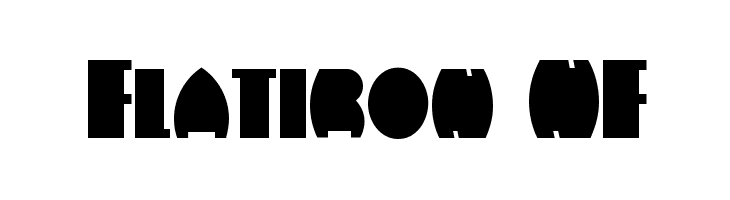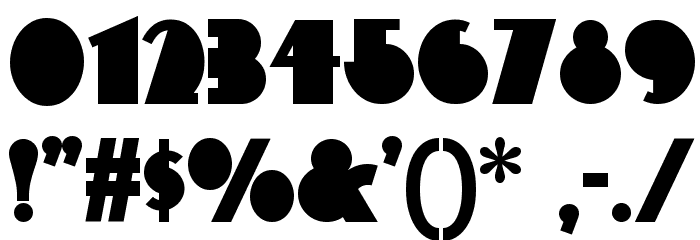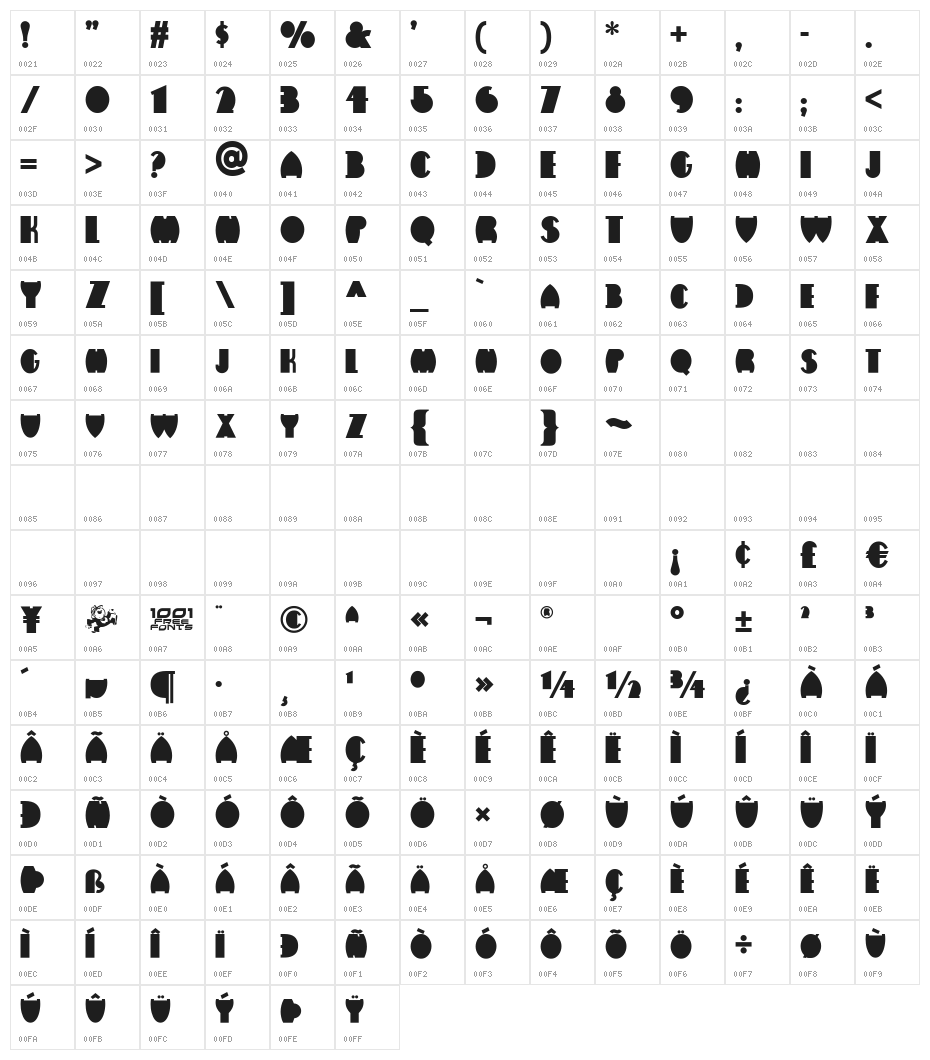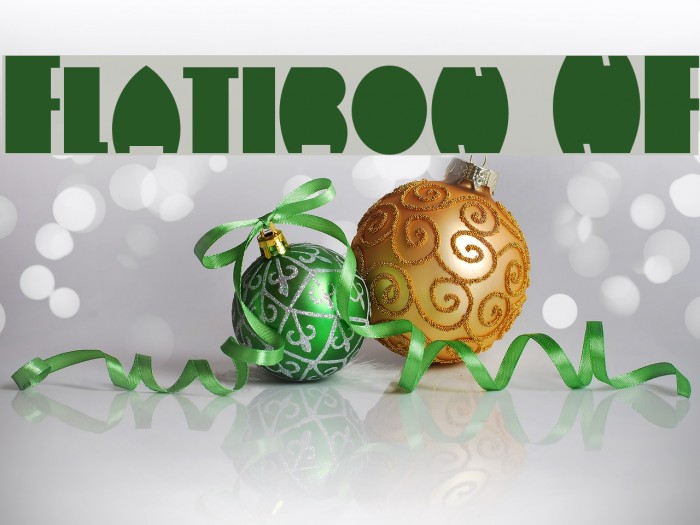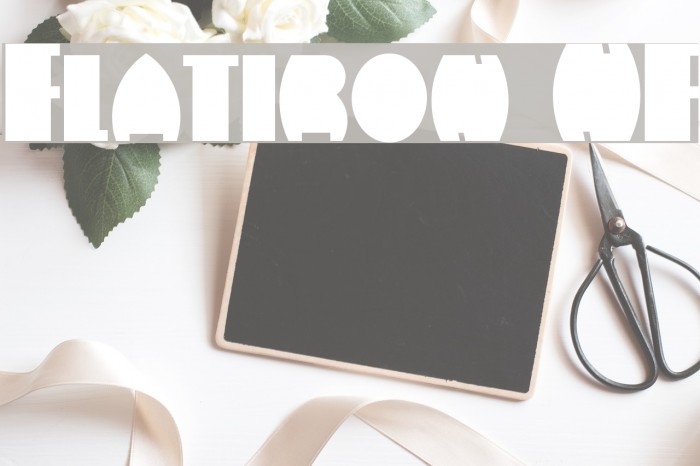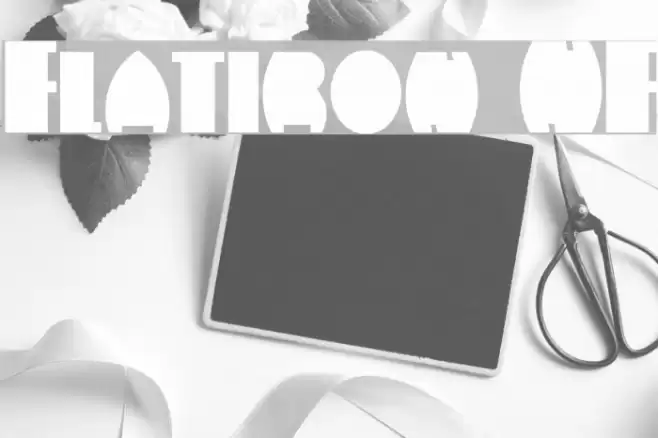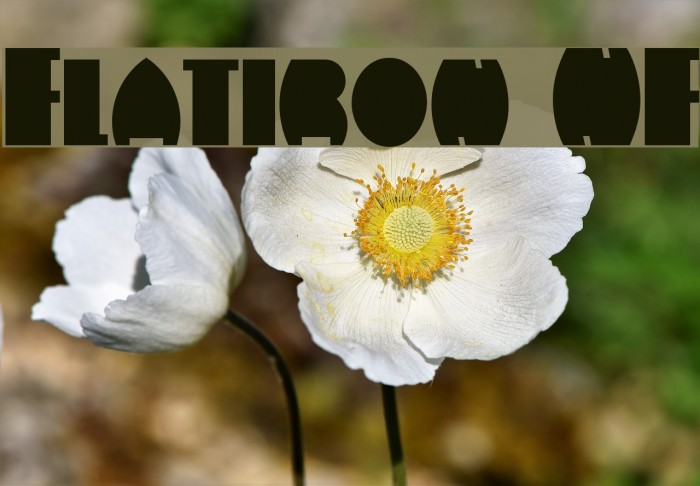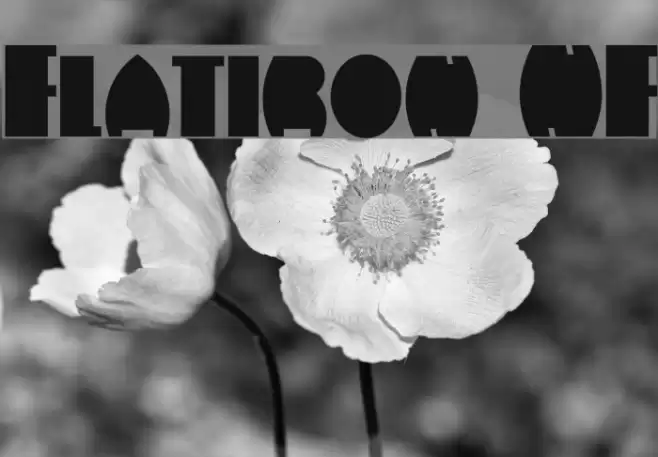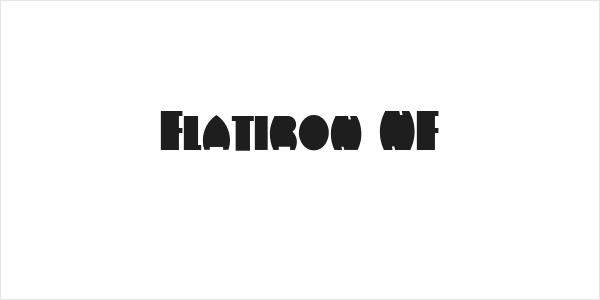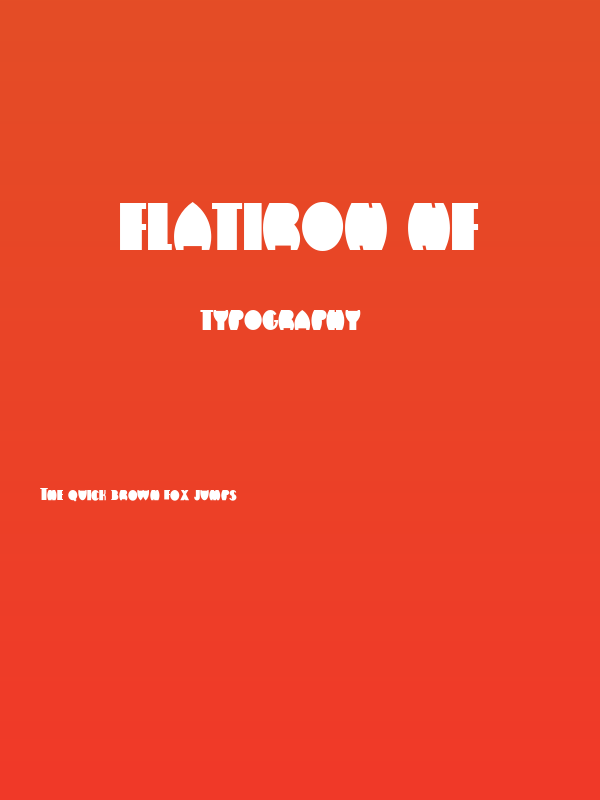
Flatiron NF Font
Flatiron NF Description
This font features bold, geometric shapes with a strong, impactful presence. The characters are constructed with thick, uniform strokes, creating a sense of solidity and strength. The design incorporates unique cutouts and angles, giving it a modern and industrial feel. The uppercase and lowercase letters maintain a consistent style, with rounded edges and sharp corners that add to its distinctive look. The numerals and special characters follow the same bold aesthetic, ensuring a cohesive appearance across all glyphs.
| Proposed Projects | Ideal for branding, posters, and signage where a strong visual impact is needed. |